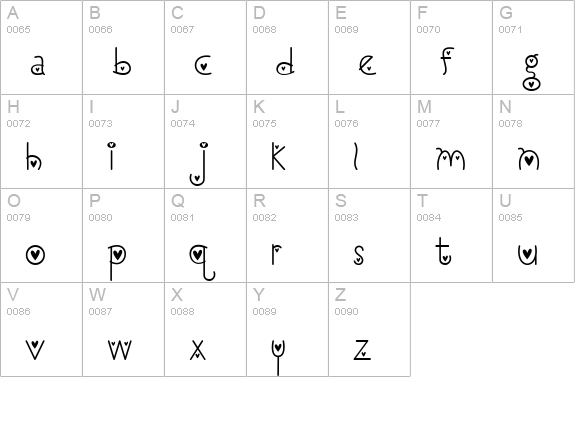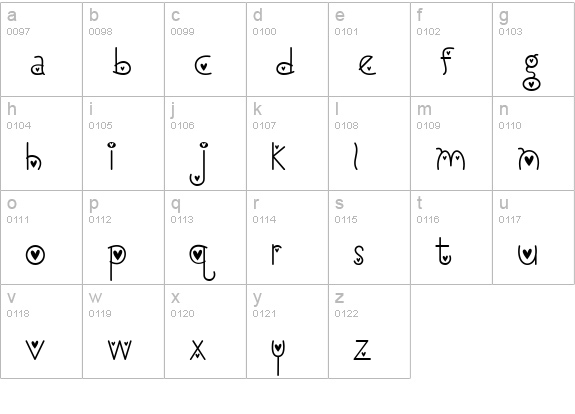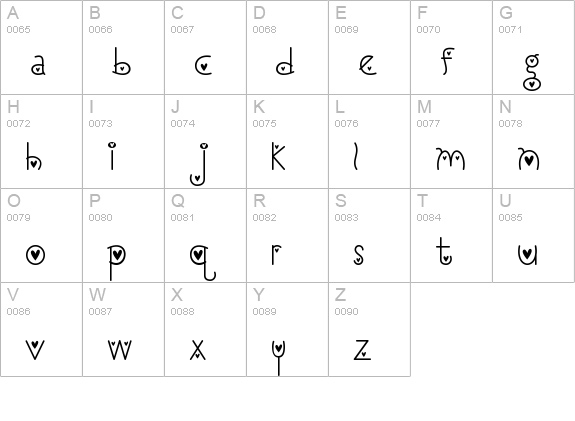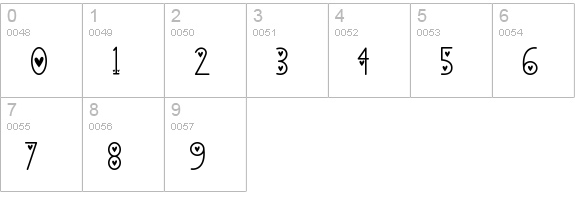
I Love You Monkey (Hearted) Font Details
Introducing the captivating and endearing I Love You Monkey (Hearted) font, a delightful typeface that will warm your heart and bring a touch of playfulness to your designs. This font is perfect for adding a touch of love and whimsy to any project, whether it's a greeting card, logo, or social media post. With its adorable monkey-inspired characters and heart-shaped accents, I Love You Monkey (Hearted) font is sure to make a lasting impression. Each letter is carefully crafted with intricate details, capturing the essence of affection and joy. The playful curves and unique design elements make this font truly one-of-a-kind. But the best part? I Love You Monkey (Hearted) font is absolutely free! That's right, you can download this charming font for no cost at all, exclusively at FontsMarket.com. We believe that creativity should be accessible to everyone, and that's why we've made this font freely available for you to enjoy. So go ahead and spread the love with I Love You Monkey (Hearted) font. Let its whimsical charm and romantic undertones inspire your next project. Whether you're creating a heartfelt message or adding a touch of affection to your designs, this font is sure to make a lasting impression. Download it today and let your creativity soar!